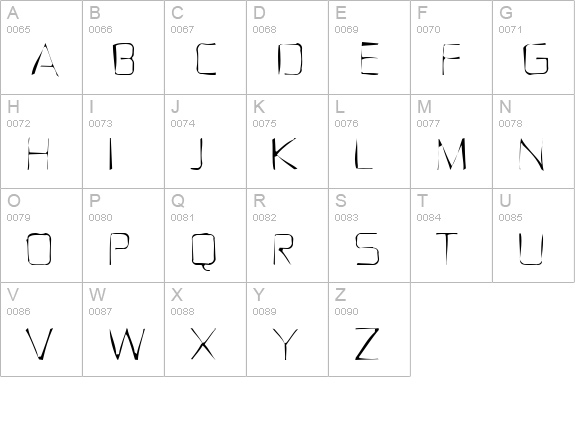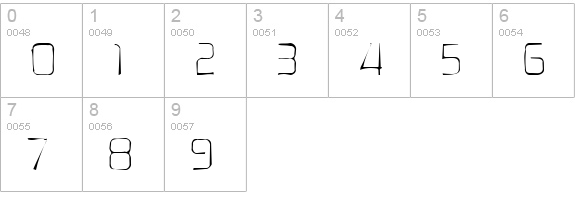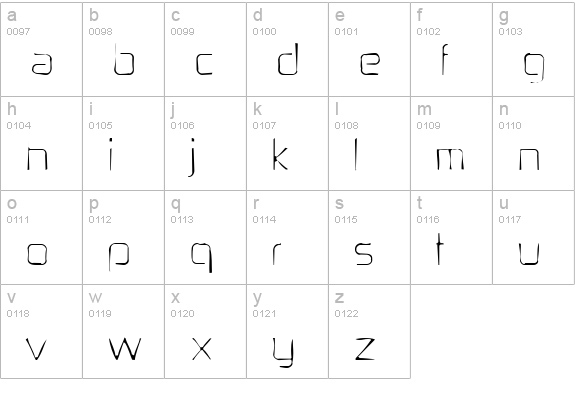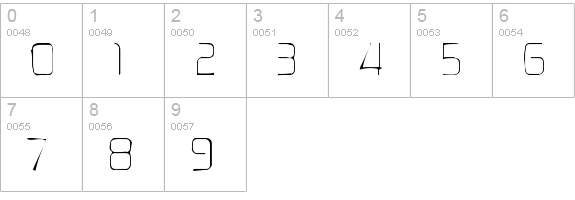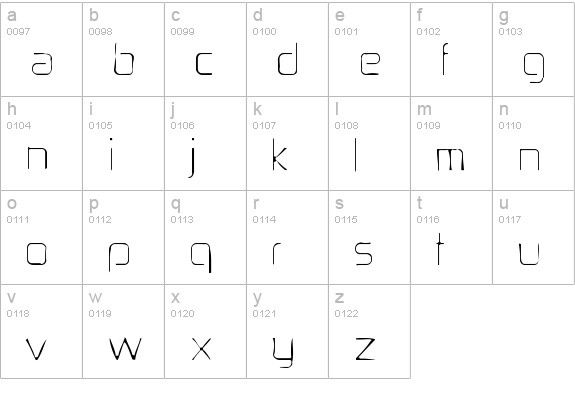
Zekton Gaunt Font Details
Zekton Gaunt is a sleek and modern font that exudes sophistication and professionalism. Its clean lines and sharp angles make it perfect for a wide range of design projects, from logos to printed materials. The bold and commanding presence of Zekton Gaunt is sure to make a statement and leave a lasting impression on your audience. What makes Zekton Gaunt even more appealing is that it is available for free download at FontsMarket.com. This means that you can easily access this high-quality font and use it in your projects without any cost. Whether you are a designer looking to add a touch of elegance to your work or a business owner wanting to create a strong brand identity, Zekton Gaunt is a versatile font that will meet your needs. Download it today and elevate your designs with this exceptional typeface.